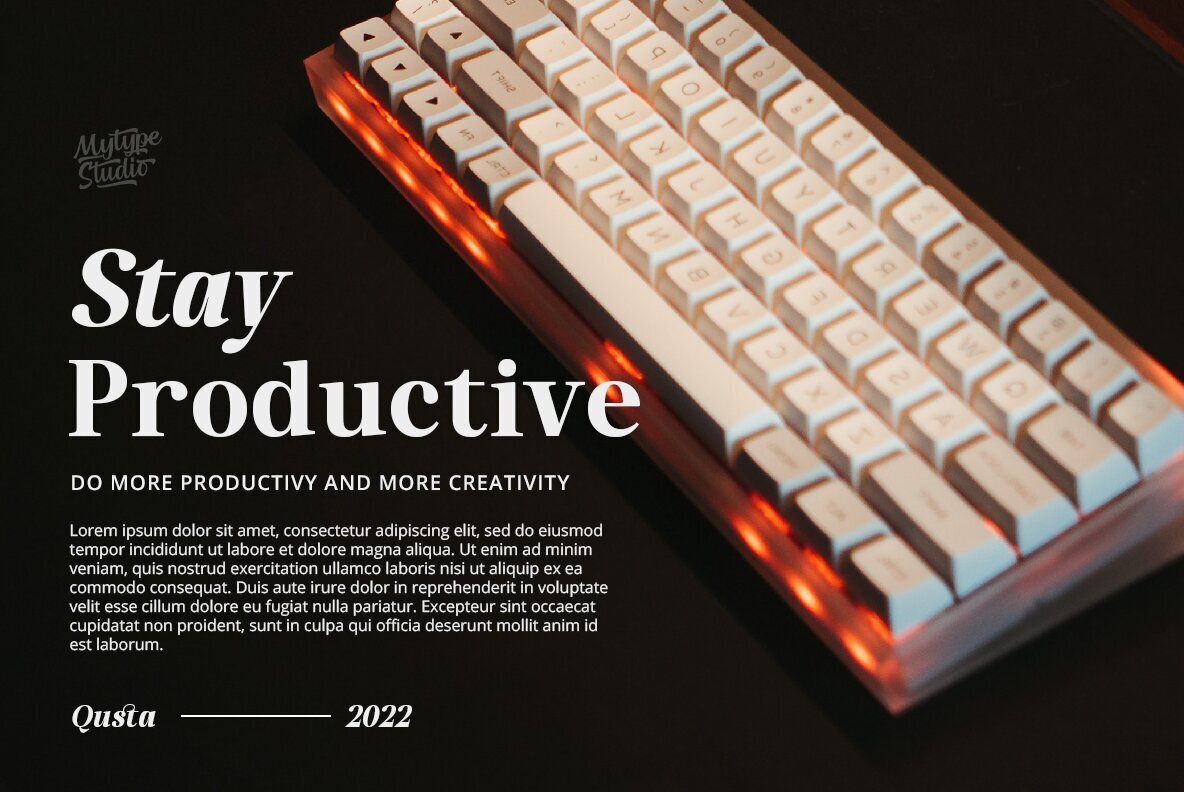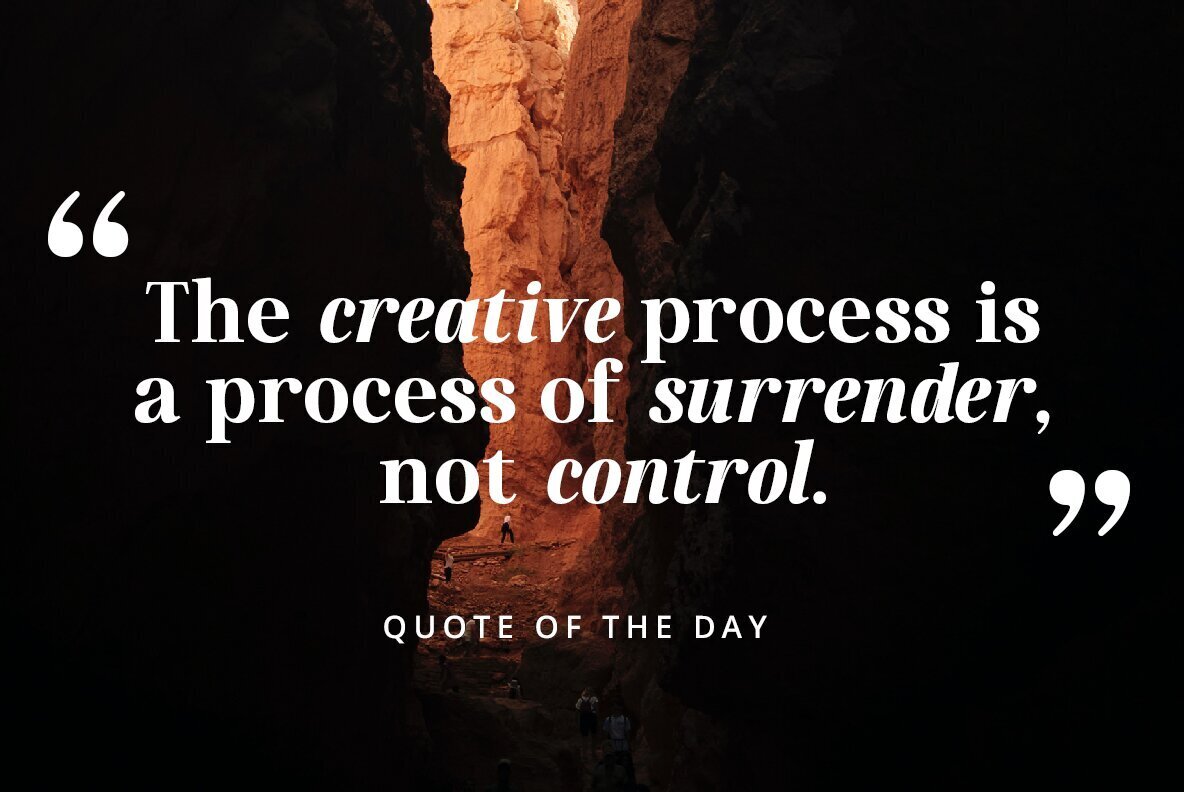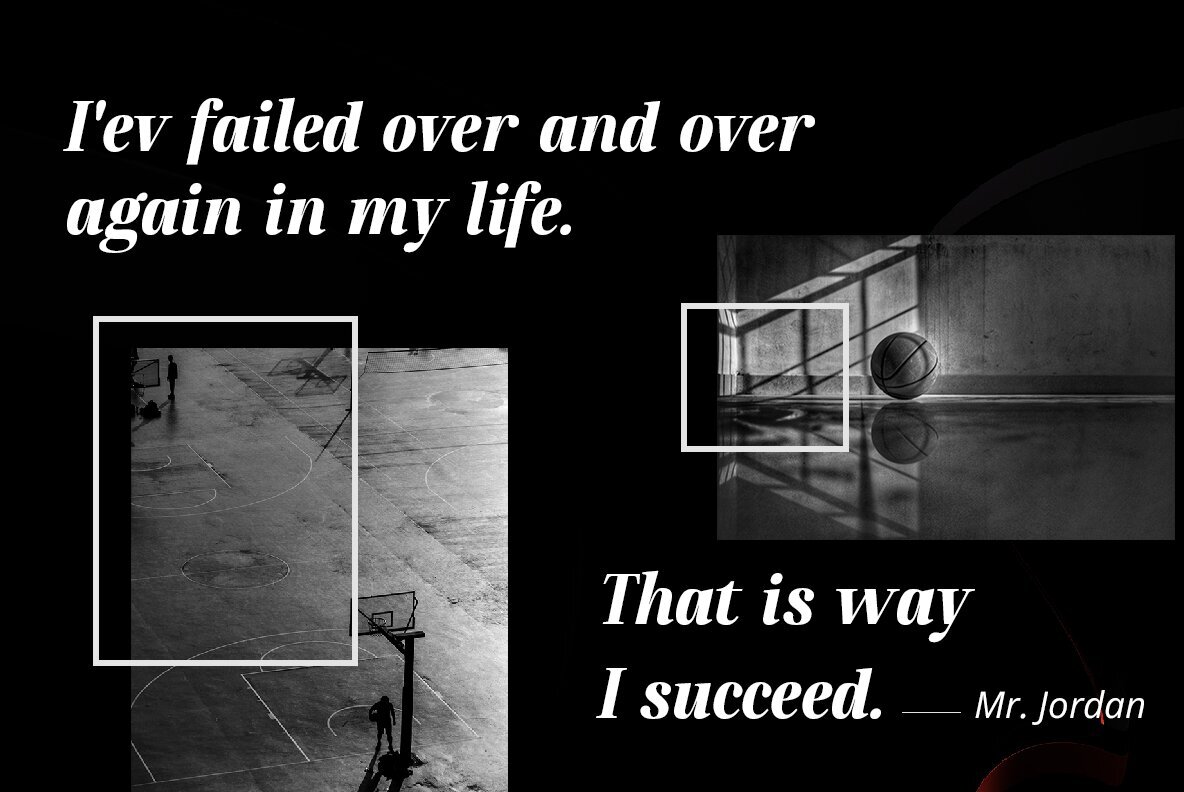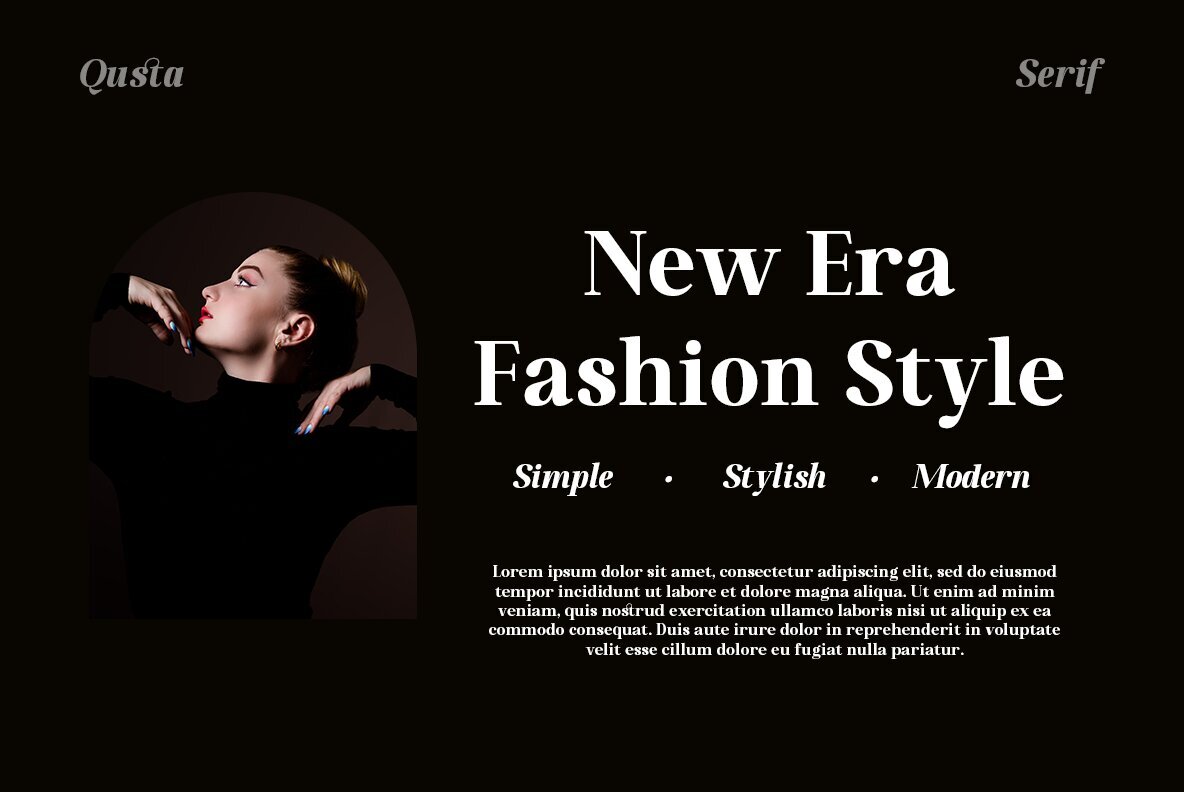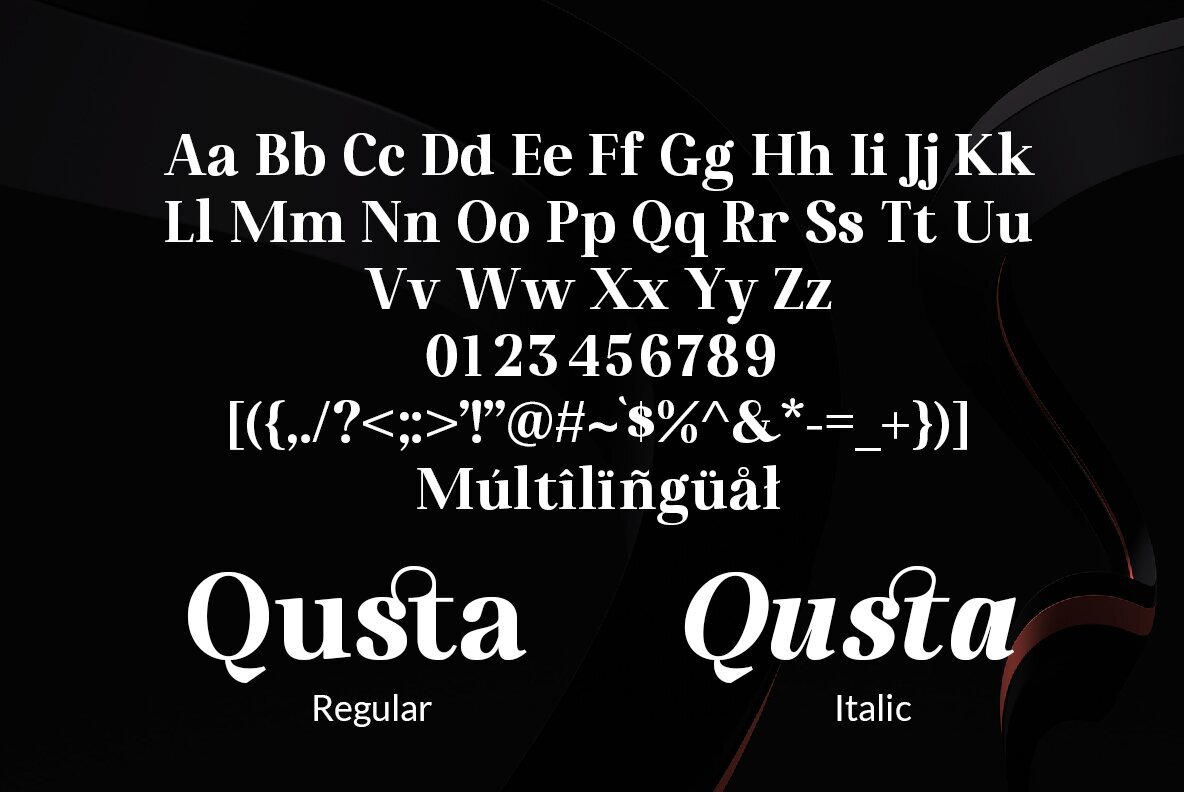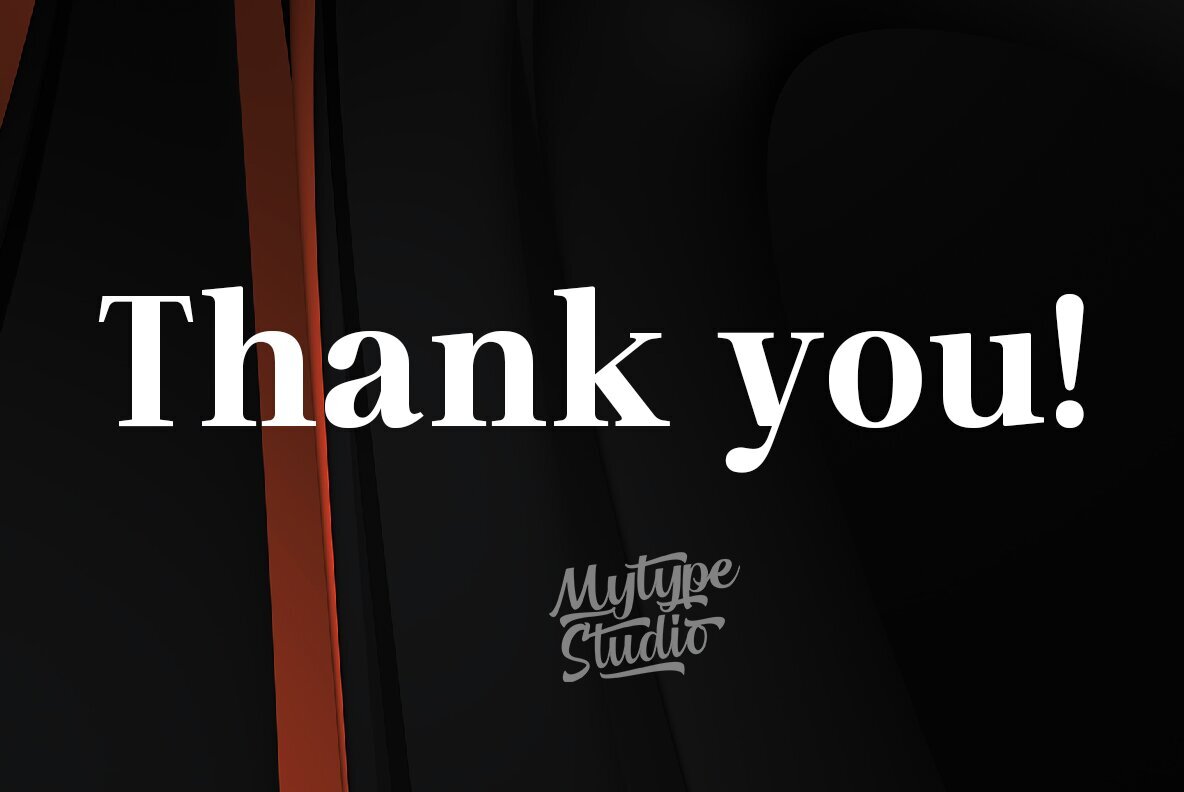
Qusta Font
Qusta Regular
Qusta Italic
Qusta is a modern serif font that exudes elegance and charm, making it ideal for high-end design projects. Its sophisticated style is perfect for creating luxury logos, branding materials, and classy editorial layouts. Whether you're designing for women's magazines, cosmetic brands, or the fashion industry, Qusta provides a versatile option that enhances the visual appeal of any project.
This refined font features a full set of lowercase and uppercase characters, numbers, and punctuation, ensuring comprehensive utility for designers. Additionally, it includes an array of standard ligatures and a broad selection of international characters, making it adaptable for various languages and stylistic needs. With its timeless appeal, Qusta is a perfect choice for those seeking to infuse their work with a sense of sophistication and quality.